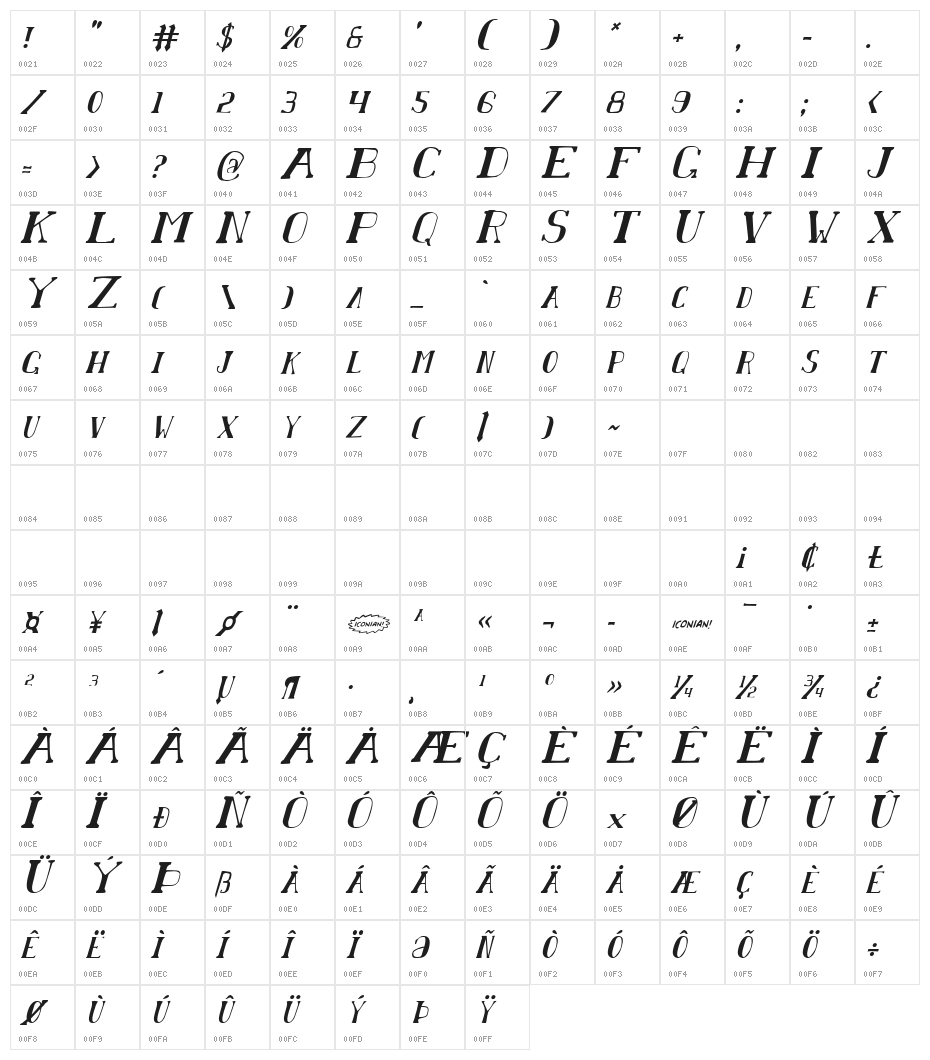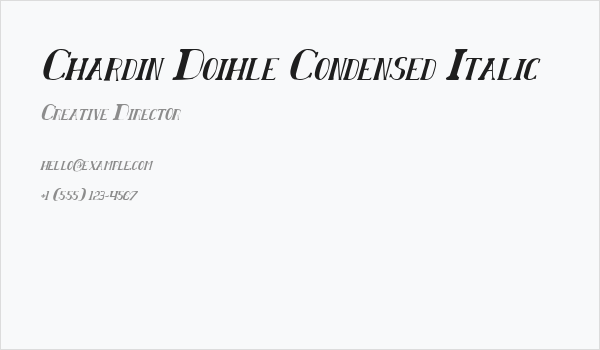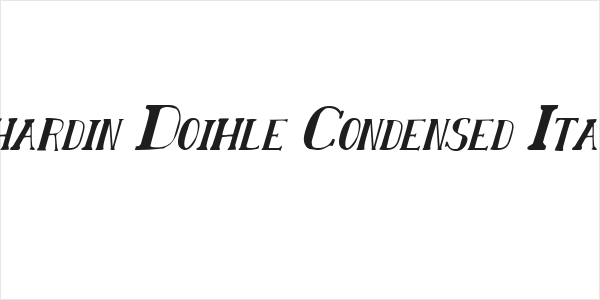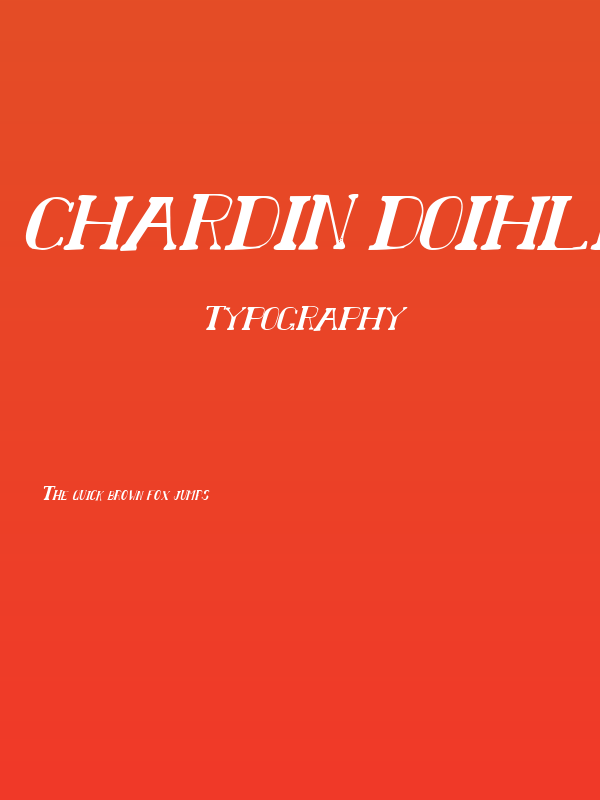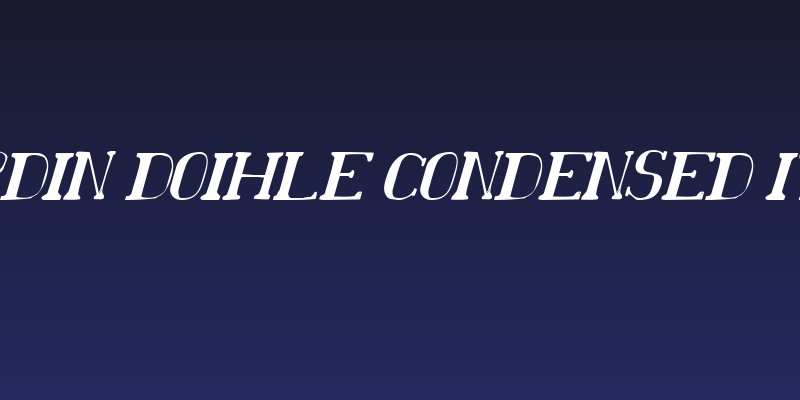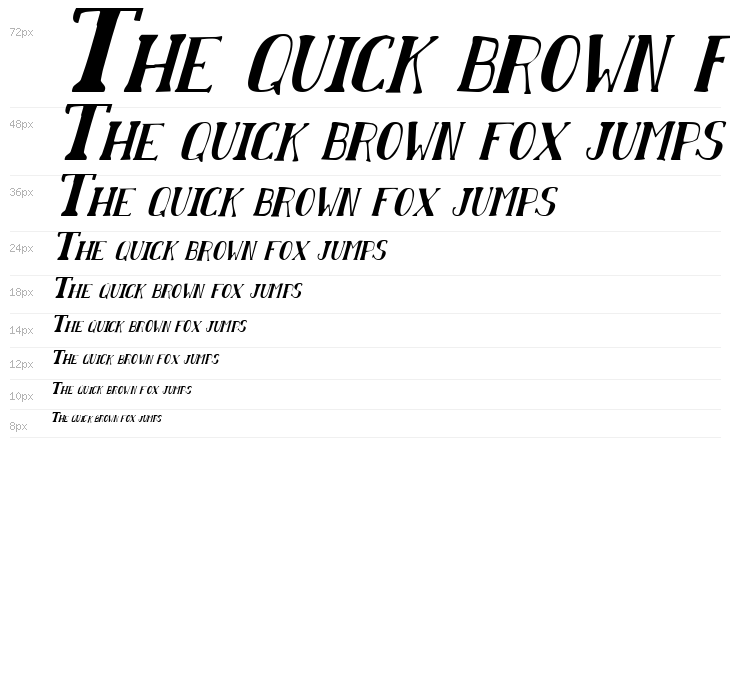
Chardin Doihle Condensed Italic Font
Chardin Doihle Condensed Italic Description
This font features a distinct italic style with a condensed width, giving it a sleek and modern appearance. The characters are elegantly slanted, providing a sense of motion and dynamism. The strokes are bold, yet the overall design maintains a refined and sophisticated look. The uppercase and lowercase letters are well-balanced, with a consistent slant that enhances readability. The numerals and special characters are designed to complement the alphabet, maintaining the same stylistic elements. This font is ideal for projects that require a touch of elegance and modernity.